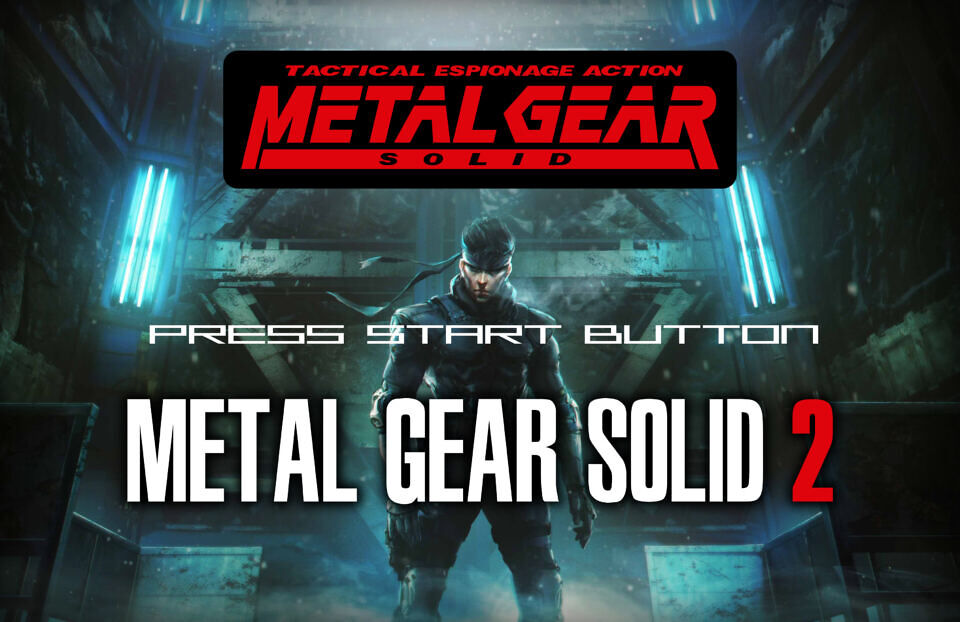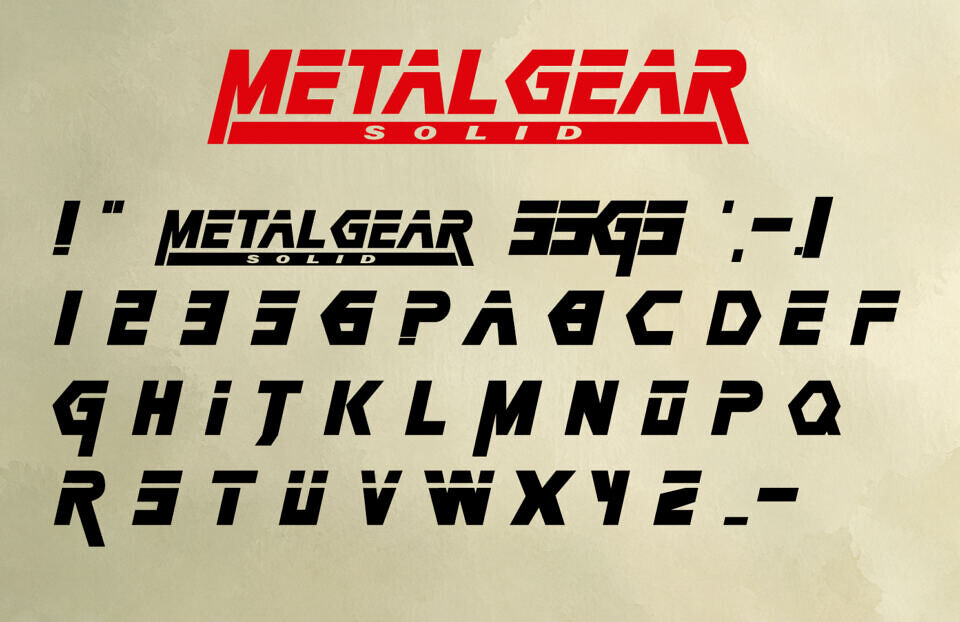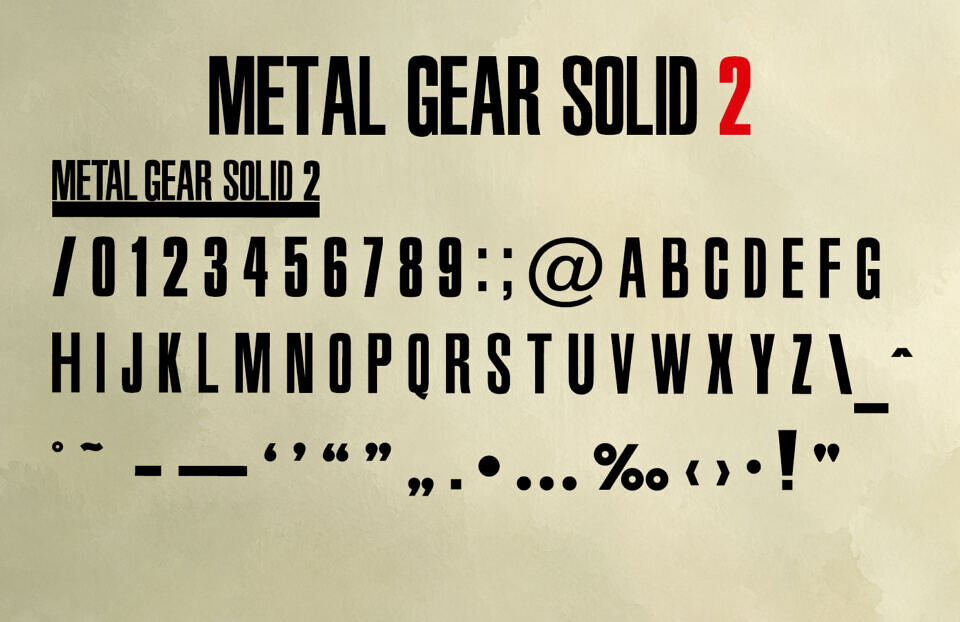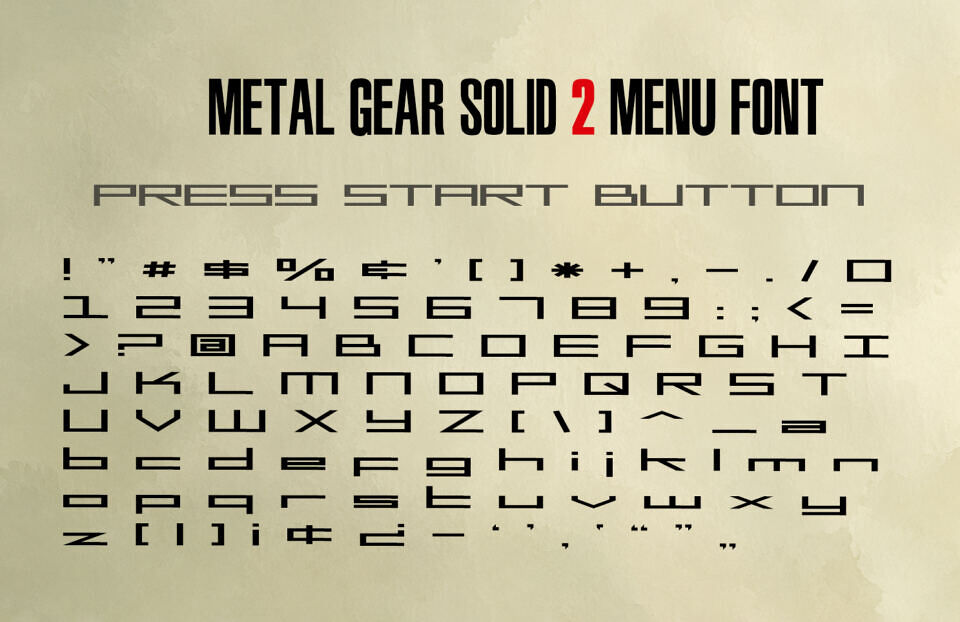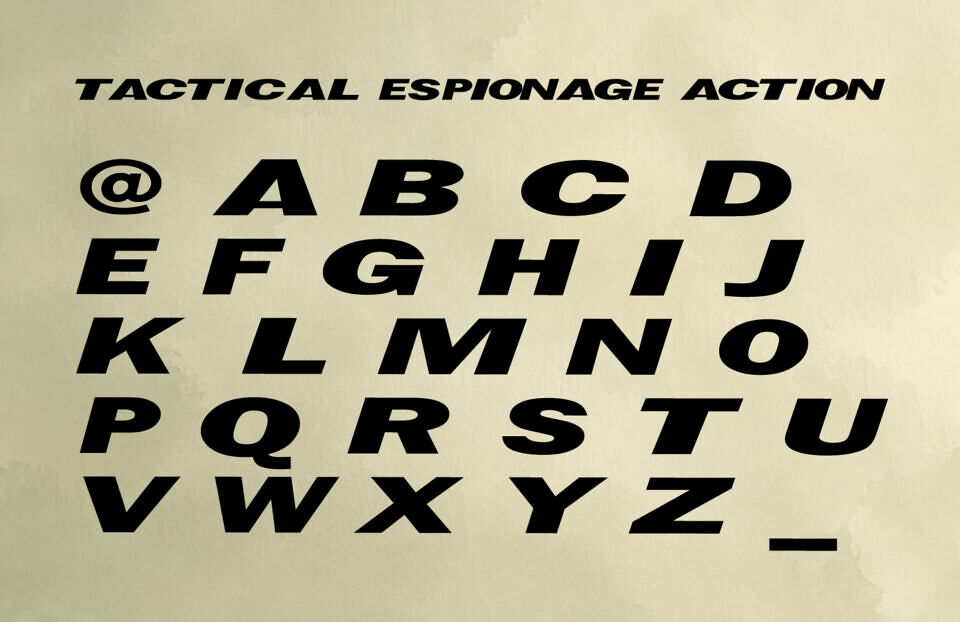
Metal Gear Solid Logo Font
This comprehensive, fan-made font family perfectly replicates the iconic typography of the classic Metal Gear Solid series. It features the bold, stylized lettering for the original MGS1 logo, the distinct tall condensed typeface for MGS2, and the futuristic, blocky MGS2 menu font.
Additionally, it accurately captures the wide, italicized sans-serif styling used for the famous “TACTICAL ESPIONAGE ACTION” subtitle. It’s an essential, highly nostalgic tool for creators aiming to capture Kojima’s classic espionage aesthetic.